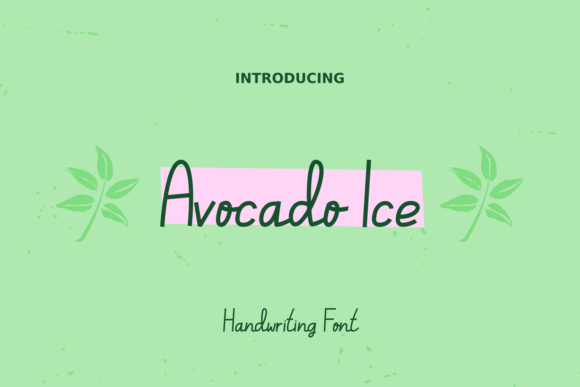
Dive into the world of Avocado Ice, an exquisite script font family crafted by The Grateful Studio. This font family captures the essence of handwritten letters with its clean, thin, and smooth lines, creating a captivating visual experience for your designs.
Avocado Ice is not just a font; it's an art form that transforms your words into heartfelt messages. Its unique style is perfect for adding a touch of elegance and charm to any project, whether it's a heartfelt letter, an invitation to a special occasion, or a social media post that's sure to turn heads.
With Avocado Ice, your designs will blossom into something truly extraordinary. Picture a stationary art piece that captures the essence of a handwritten note, a wedding invitation that exudes warmth and romance, or a greeting card that conveys your heartfelt sentiments in a way that's both personal and unforgettable.
But that's not all! Avocado Ice is also a font of versatility, effortlessly adapting to a wide range of styles and designs. Its clean and thin lines bring a touch of sophistication to any project, while its smooth flow lends a sense of elegance and grace.
So, why wait? Embark on a creative journey with Avocado Ice today and witness the transformation of your designs into masterpieces that evoke emotion, convey messages with authenticity, and leave a lasting impression on your audience. Let Avocado Ice be your font of choice for all your handwritten lettering needs and unlock a world of creative possibilities!